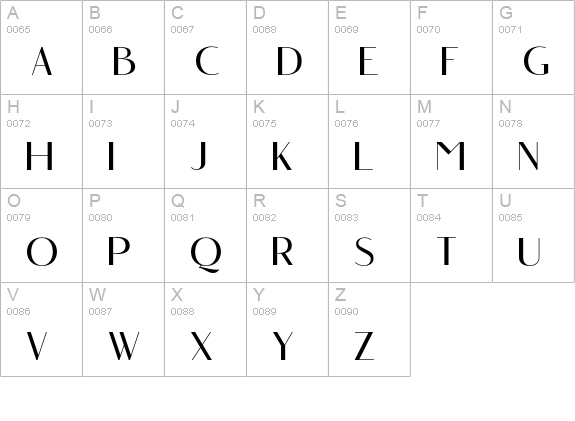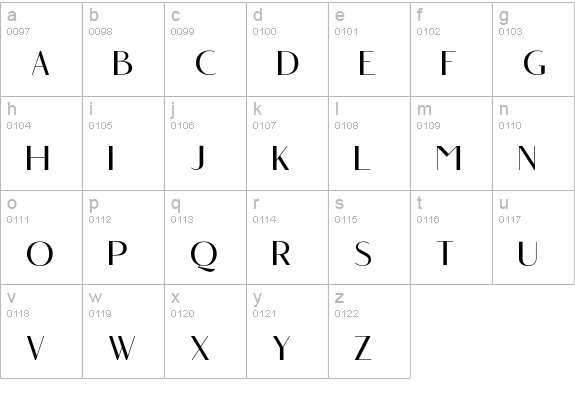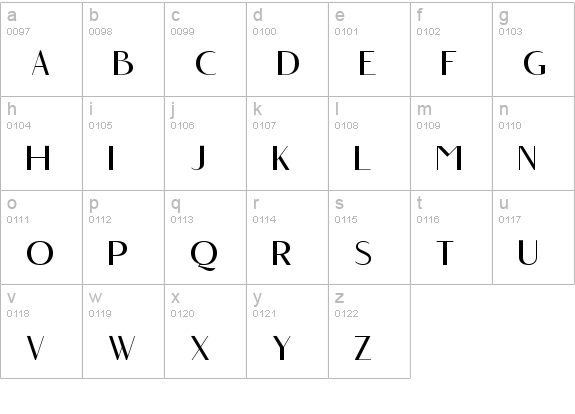
angelic bonques sans regular Font Details
angelic bonques sans regular is the standard, neutral variant in the angelic typeface family \xE2\x80\x94 well suited to general body text, paragraphs, and standard typographic work.
The Angelic Bonques Sans font is a divine creation that exudes elegance, grace, and sophistication. Its angelic curves and gentle strokes bring a sense of celestial beauty to any design project. This ethereal font is a perfect choice for those seeking a touch of heavenly charm in their typography.
What sets Angelic Bonques Sans apart is its unique blend of modernity and classic appeal, making it versatile for a wide range of applications. Whether you're designing a wedding invitation, crafting a logo for a luxury brand, or creating a poster for a special event, this font will add a touch of celestial magic to your work.